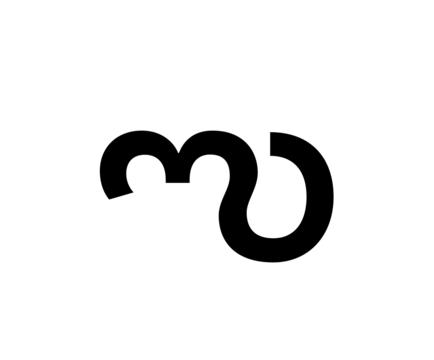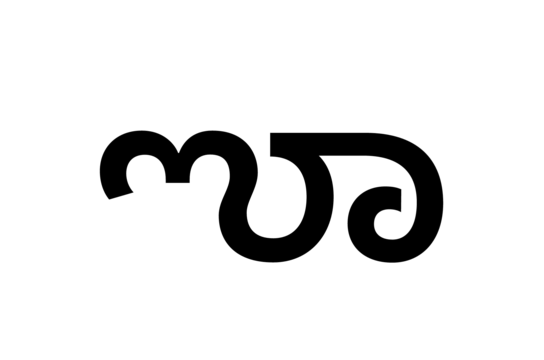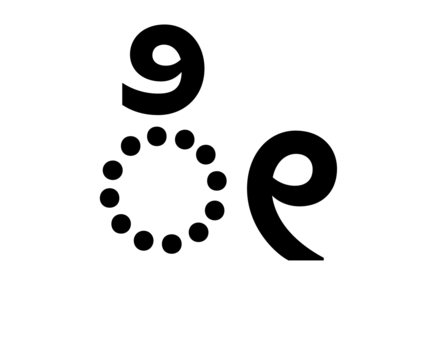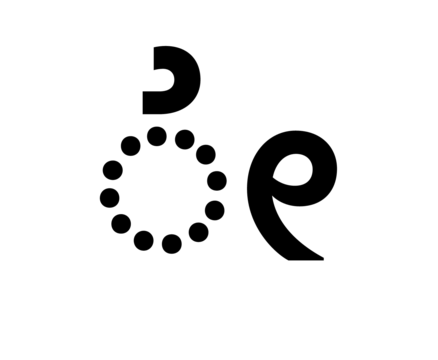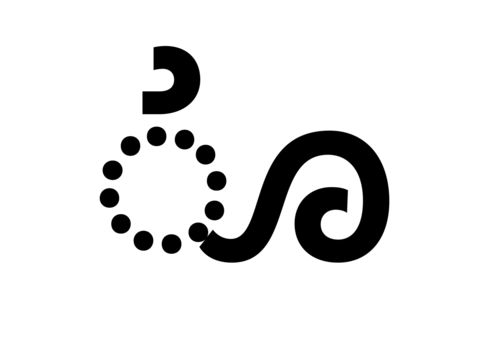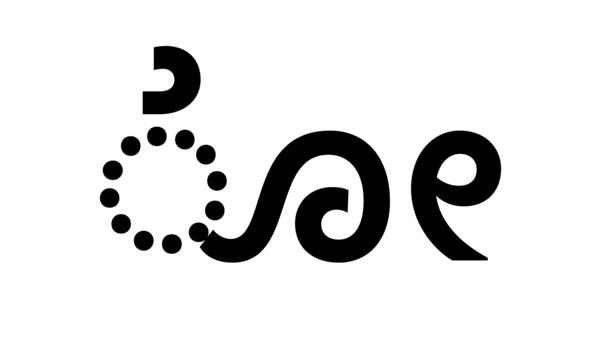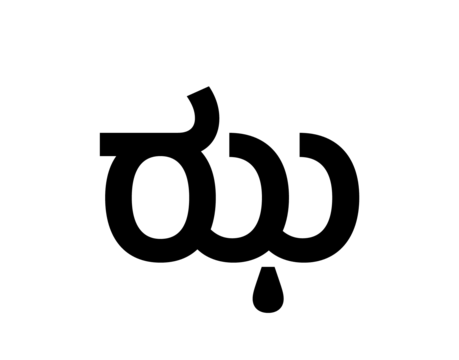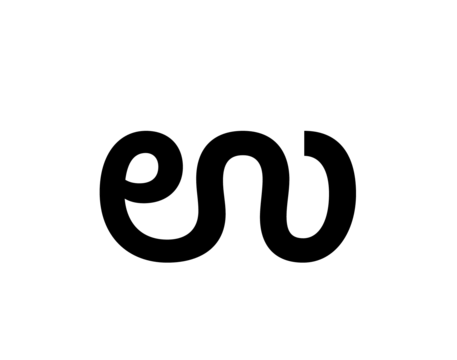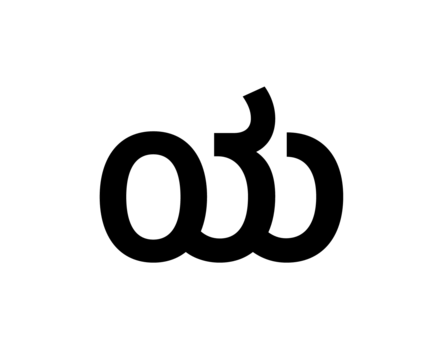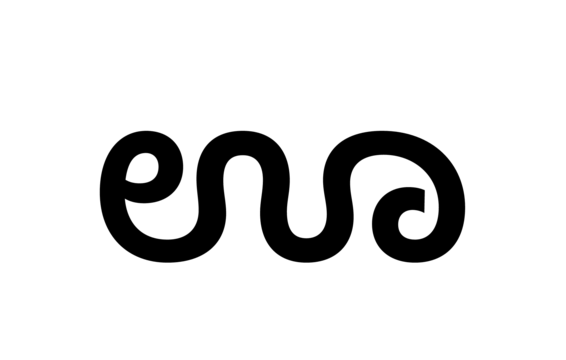
Kohinoor Kannada is an all-around Kannada for software engineers and branding specialists. Its letterforms feature open counterforms, and strokes with low contrast. Thanks to its clear appearance, the fonts are easy to work with, and their results are inviting to read. Kohinoor Kannada is an ideal choice for use in text-heavy multilingual projects, including app design, corporate design, editorial design, signage systems, and television subtitling. Each font contains 536 Kannada glyphs, offering a character set fully supporting all necessary Kannada-script conjuncts and ligatures. Kohinoor Kannada is part of our larger Kohinoor family, containing fonts for all of India's 11 official writing system. Taken together, they support hundreds of languages that are spoken natively by billions of people around the world.
Family Name | Kohinoor Kannada |
Designer(s) | Satya Rajpurohit |
Classification | Sans |